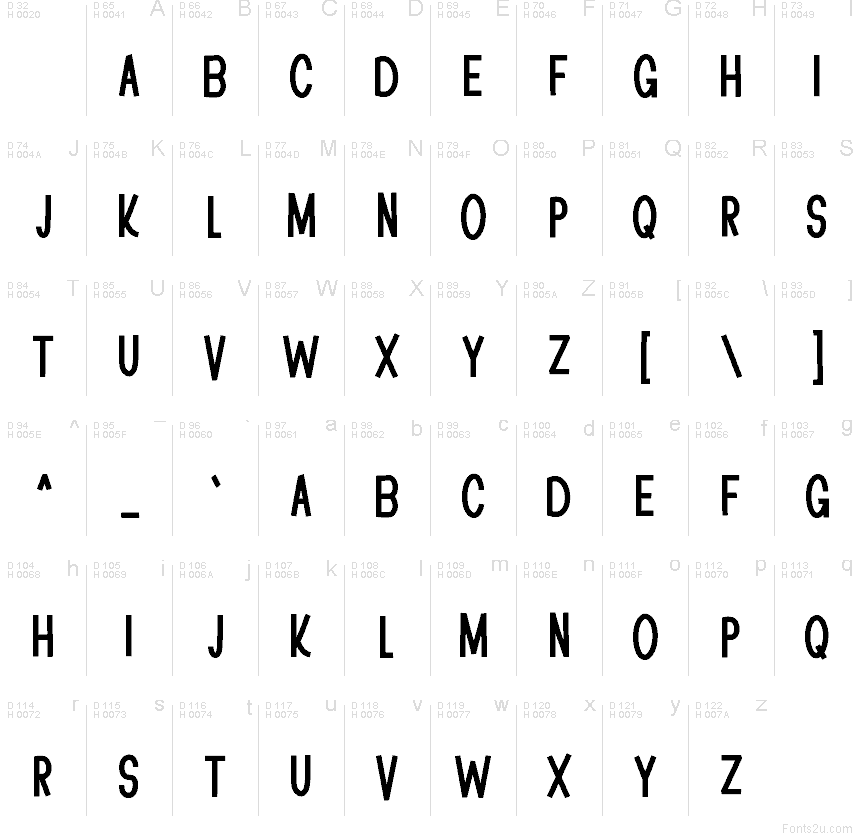
Pouncing
Pouncing font by HannaBie Creative Studio is a free comic display typeface with letters that feel like they’re spring-loaded. The tall, ultra-condensed shapes pack thick inky strokes into a narrow footprint, so every word looks like it’s about to leap off the page. Slightly irregular curves keep it playful rather than rigid, giving headlines a bold, hand-drawn punch without losing legibility.
Using Pouncing, text reads loud and energetic on comic covers, children’s book titles, posters, YouTube thumbnails, game logos, and sticker designs. This free font thrives in big sizes where its chunky silhouettes and tight spacing can shout, not whisper. For body text, pair it with a clean, simple sans in a lighter weight to keep the layout balanced and readable.